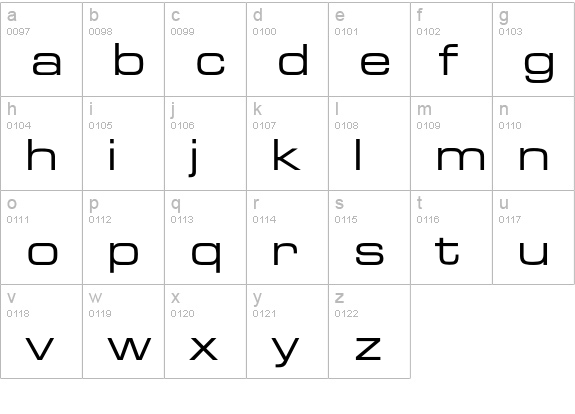
TheklaExtended Font Details
TheklaExtended font is a stunning display typeface that exudes elegance and sophistication. This font is perfect for adding a touch of class to any design project, whether it be a logo, website, or print materials. With its elongated and gracefully curved letterforms, TheklaExtended captures attention and creates a lasting impression. What sets TheklaExtended font apart is not only its aesthetics but also its accessibility. It is available for free download at FontsMarket.com, making it a valuable resource for designers and creatives who are on a budget or want to explore new typography options without any financial constraints. This font offers the opportunity to enhance your designs with a high-quality typeface that doesn't compromise on style or professionalism. The versatility of TheklaExtended font is another reason why it has gained popularity among designers. It can be used for a wide range of purposes, from headlines to body text, thanks to its excellent readability. Whether you want to make a bold statement or add a subtle touch of sophistication, this font has got you covered. TheklaExtended font is designed with precision and attention to detail, resulting in smooth and clean lines that give it a contemporary and refined look. Its balanced proportions and carefully crafted letterforms make it a versatile choice that can be used in various design contexts, from modern and minimalistic to vintage and retro. Overall, TheklaExtended font is a must-have for any designer or creative looking to elevate their projects with a touch of elegance. Its availability as a free download at FontsMarket.com makes it even more enticing, allowing you to explore its potential without any financial limitations. So why wait? Download TheklaExtended font today and let your designs shine with its timeless beauty and versatility.